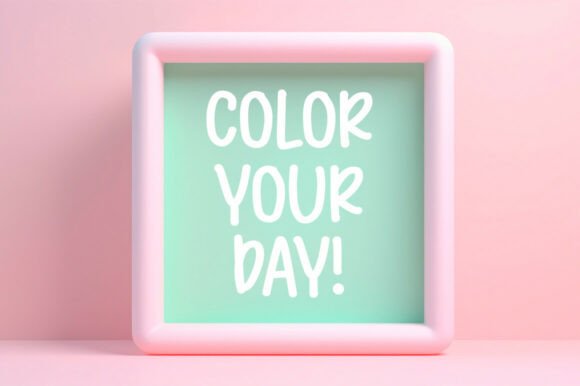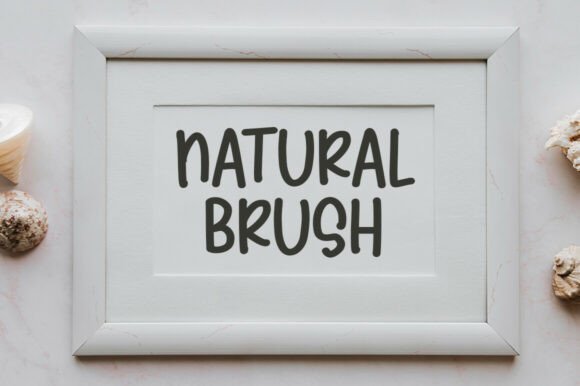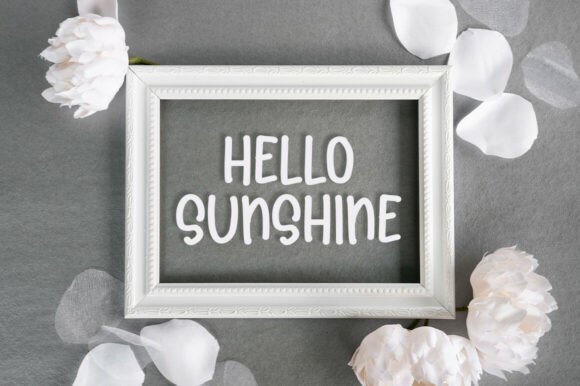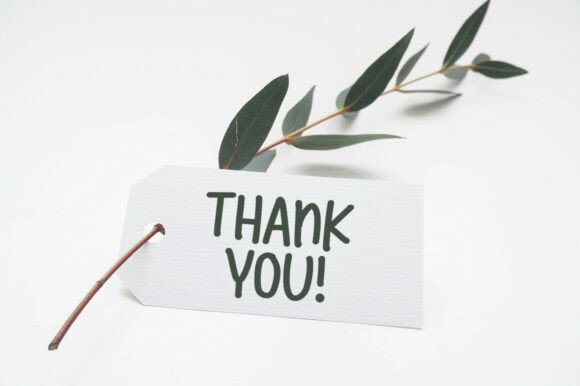
The Art of Elegant Typography: Introducing Gentle Sketch Font
As a designer, there’s nothing quite like the thrill of bringing a concept to life. You’re sitting at your desk, surrounded by scribbled notes and half-finished sketches, when it hits you – the perfect font. For me, it was the Gentle Sketch Font that stole the show. Its hand-drawn elegance and natural curves added a touch of sophistication to even the simplest of designs.
Gentle Sketch Font is a premium brush font that’s perfect for adding a personal touch to invitations, logos, and branding materials. Its unique design features gentle curves and rough edges, giving it a truly artistic look. Whether you’re a seasoned designer or just starting out, Gentle Sketch Font is a valuable addition to your toolkit.
With Gentle Sketch Font, you’ll be able to create designs that are both beautiful and unique. Its versatility makes it perfect for a wide range of projects, from wedding invitations to company branding. And with its elegant style, you’ll be able to add a touch of sophistication to even the most mundane designs.
Gentle Sketch Font Key Features
- Unique Characteristics: Gentle Sketch Font features a unique, hand-drawn design with subtle imperfections, giving it a distinctive and organic feel.
Gentle Sketch Font Review
Overall, I think the Gentle Sketch Font is a great addition to any design library. It has a unique, hand-drawn feel that can add a personal touch to your designs. ✨ One of the things that works well is its flexibility – it’s suitable for a wide range of design projects, from logos and branding to digital products and print materials.
- ✨ Customizable: The font comes in various weights and styles, allowing you to tailor it to your design needs.
- ✨ Versatile: Gentle Sketch Font can be used in a variety of contexts, from formal to informal.
- ✨ Aesthetically pleasing: The font’s organic, hand-drawn look is visually appealing and can add a touch of personality to your designs.
However, there are some limitations to consider. ⚠️ One of the main issues is the font’s legibility at smaller font sizes. It can become difficult to read, especially for longer blocks of text. Additionally, some users may find the font’s quirky feel to be too unconventional for certain design projects.
Overall, I would recommend the Gentle Sketch Font for designers who are looking for a unique, hand-drawn feel in their designs. While it may have some limitations, its flexibility and versatility make it a great addition to any design library.
Getting the Most Out of Gentle Sketch Font
To get the most out of Gentle Sketch Font, use it for:
- Hand-drawn illustrations and designs.
- Watercolor or sketch-style graphics.
- Typography-based designs, such as quotes or posters.
Gentle Sketch Font is commonly used for:
- Children’s book illustrations.
- Handmade greeting cards and gift tags. Alternatives to Gentle Sketch Font for Designers
The Lobster Font is a beautiful, handwritten script font that’s perfect for adding a touch of elegance and sophistication to designs. It’s ideal for use in headings, logos, and other text-based elements where a unique, handwritten feel is desired.
Compared to Gentle Sketch Font, Lobster Font has a more dramatic, elegant feel, making it suitable for high-end branding and design projects. While Gentle Sketch Font has a more subtle, sketchy look, Lobster Font is bolder and more attention-grabbing.